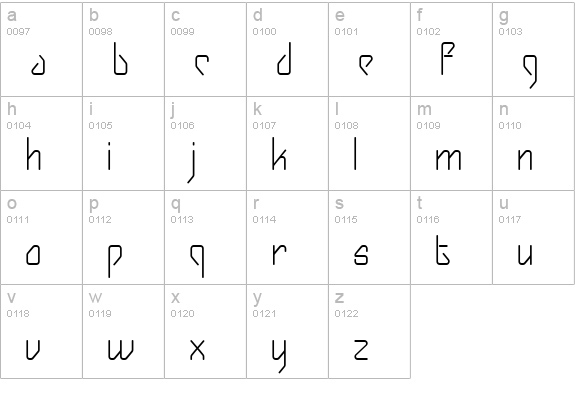
Introducing Gizmo font - a sleek and modern typeface that is sure to make your design projects stand out. With its clean lines and contemporary aesthetic, Gizmo font is the perfect choice for a wide range of applications, from branding to web design. This versatile font is available in multiple weights and styles, giving you plenty of options to choose from. Best of all, Gizmo font is completely free to download! Simply head over to FontsMarket.com to access this amazing typeface and start using it in your projects today. Whether you're working on a logo, poster, or website, Gizmo font has got you covered with its professional and stylish look. Don't miss out on this fantastic opportunity to enhance your designs with the elegant and modern Gizmo font.